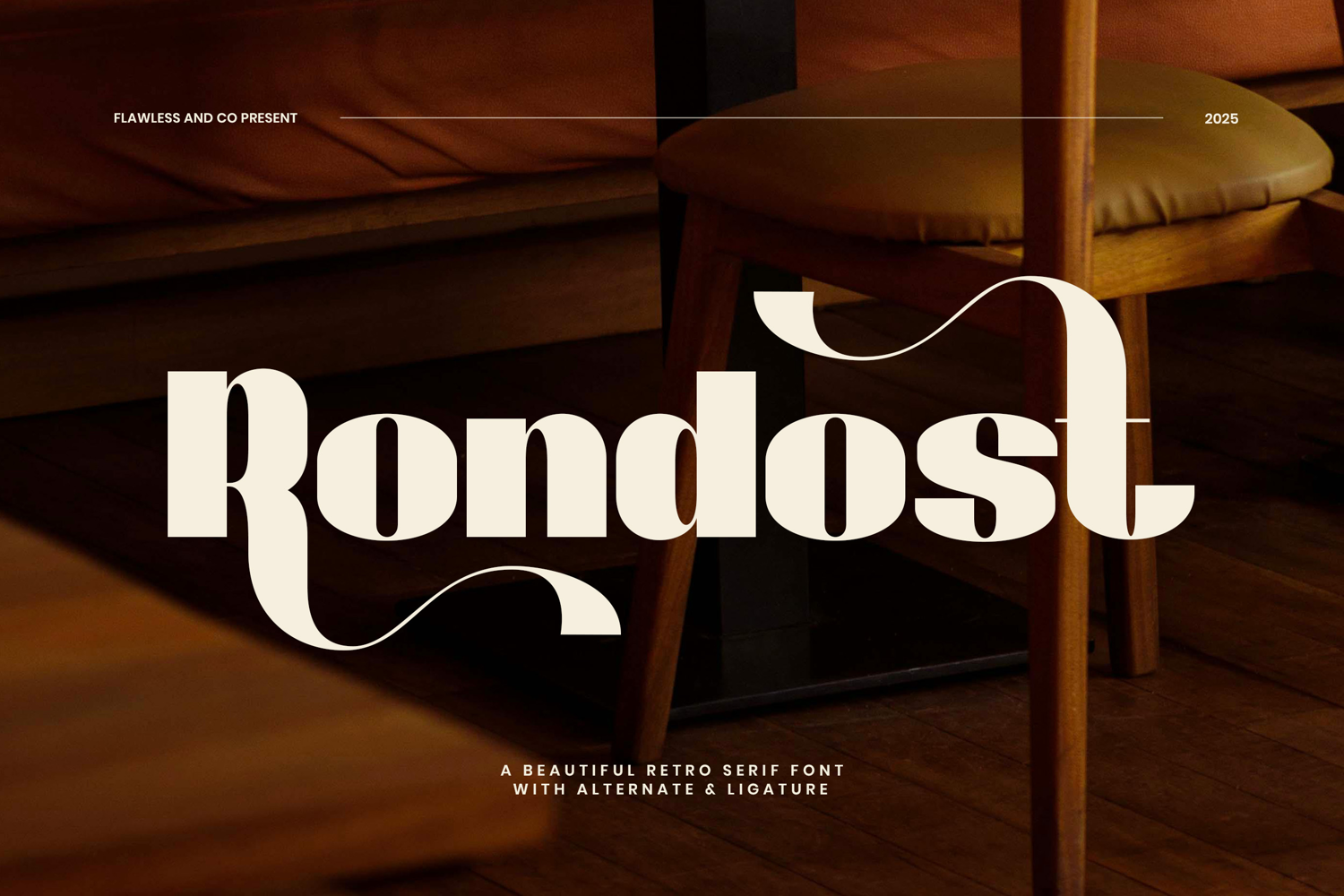
Rondost
Rondost — Beautifully Bold Retro Serif Font
Rondost is a stylish retro serif font that brings bold charm and playful sophistication to your designs. With a high-contrast shape, smooth curves, and dramatic alternates, Rondost captures the essence of vintage elegance while staying modern and distinctive. Whether you're designing for lifestyle branding, packaging, or editorial layouts, this font delivers unforgettable character with a strong visual punch. With its artistic ligatures and thoughtfully crafted alternates, Rondost invites designers to explore endless creative directions from nostalgic posters to standout logos and high-end product designs.
• Alternates & Ligatures
Rondost is perfect for creatives, designers, and brands who want to blend retro charm with modern sophistication. If you love fonts that offer bold personality, timeless style, and eye-catching flair, Rondost is made for you.
• Branding professionals seeking a unique retro-modern vibe
• Packaging designers looking for bold, memorable type
• Editorial designers needing high-impact headlines
• Creatives who love experimenting with alternates and ligatures
• Social media designers aiming to make a statement with typography
A Must-Have Font for Brand, Logo, and Wedding Creators and Designers
Rondost is more than just a typeface — it's a visual signature. With its bold retro flair and elegant serif structure, Rondost brings personality and sophistication to every design. Whether you're crafting a romantic wedding suite, a stylish brand identity, or a striking logo, this font delivers charm and distinction with ease.
Its versatile alternates and graceful ligatures make it ideal for:
• Wedding invitations, signage, and stationery with a nostalgic yet refined feel
• Logo designs that demand both boldness and beauty
• Branding projects that aim to stand out with a touch of vintage elegance
• Creative studios and designers who want a fresh, expressive font in their toolkit
Why Choose Rondost for Brand, Logo, and Wedding Projects?
Rondost combines retro charm with refined serif elegance, making it a perfect choice for standout visual identities. Its bold strokes and stylish curves bring a timeless yet contemporary feel, ideal for designs that need both personality and polish.
Whether you're building a romantic wedding suite, a sophisticated brand, or an iconic logo, Rondost offers a harmonious balance of style and readability. Its versatile alternates and ligatures give you creative freedom to craft unique, memorable typography that speaks to your audience.
• Wedding invitations & stationery
• Brand identity & logo design
• Retro-inspired packaging
• Editorial layouts & magazine headlines
• Social media graphics & marketing materials
• Fashion, beauty, and lifestyle branding
• Custom merchandise and signage